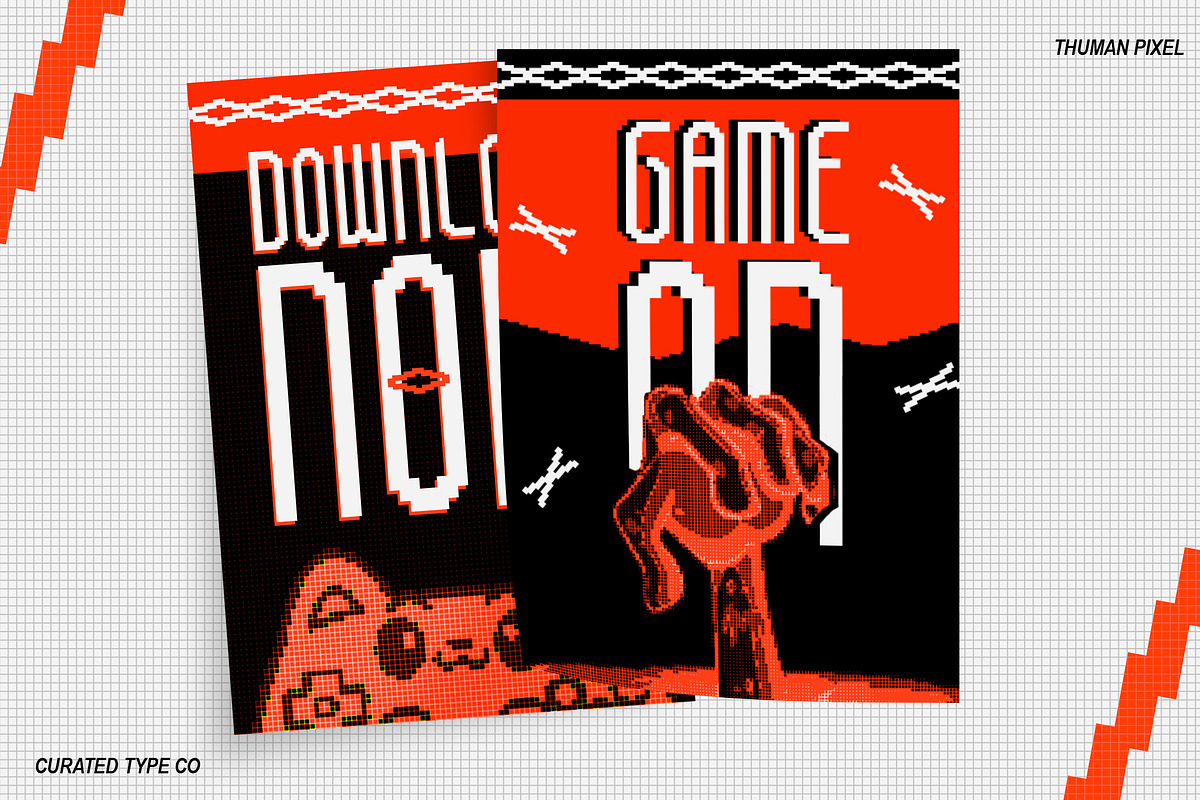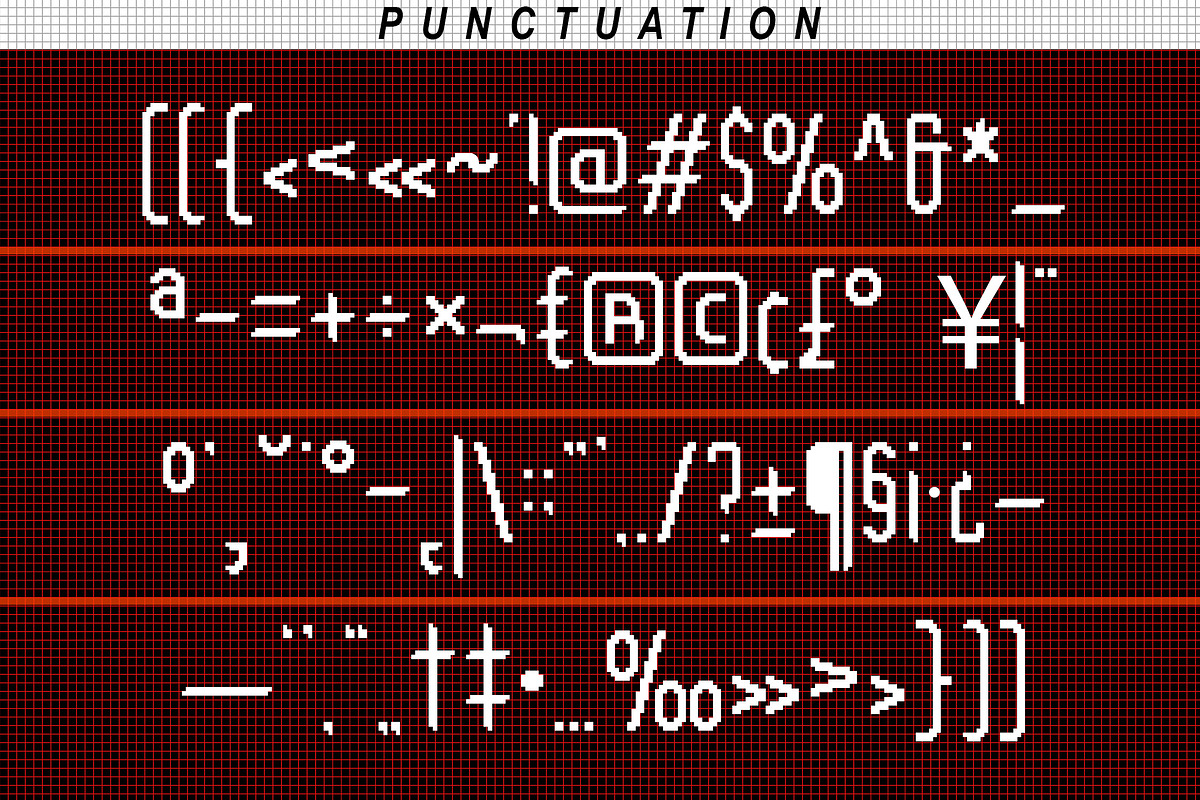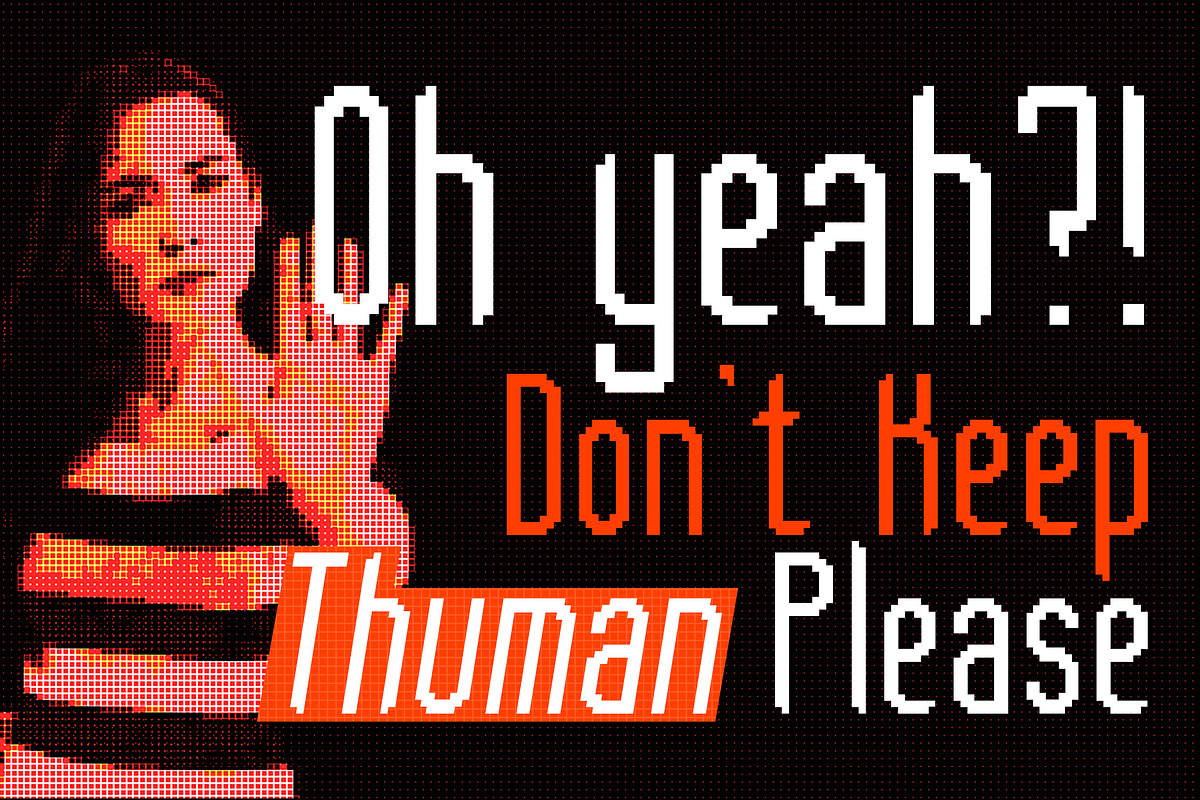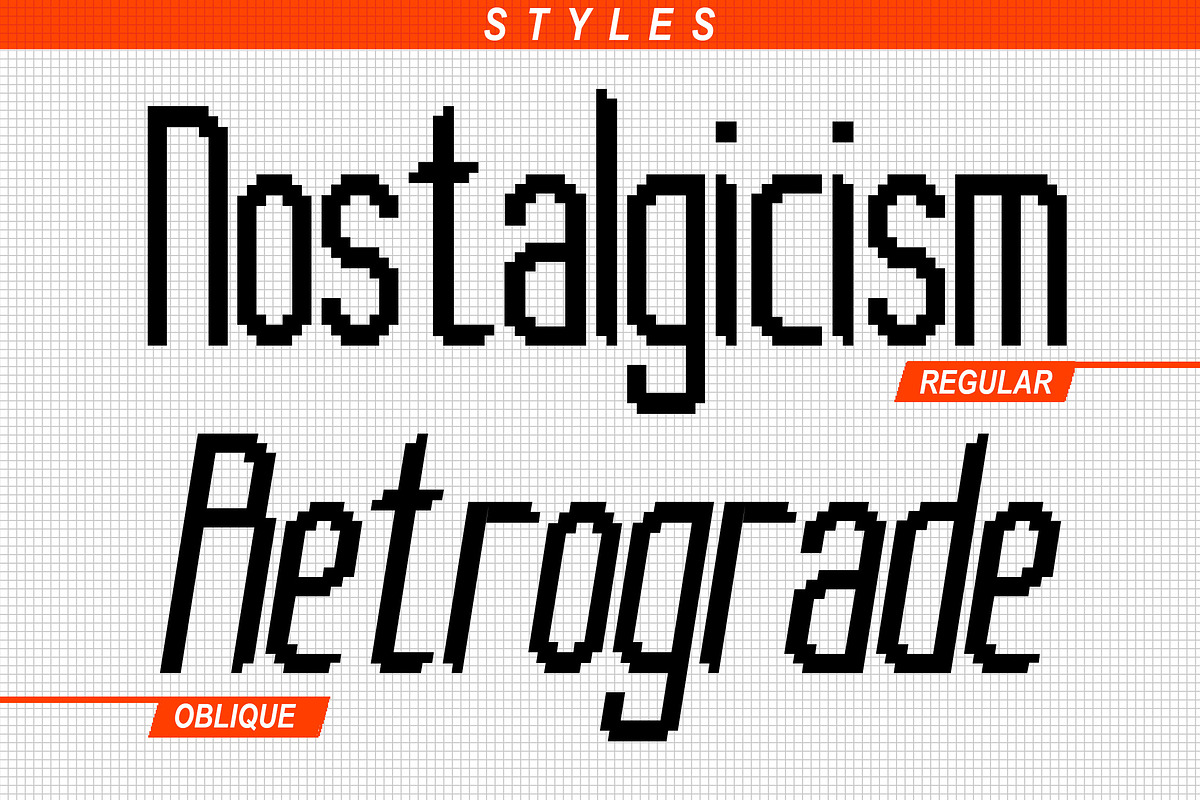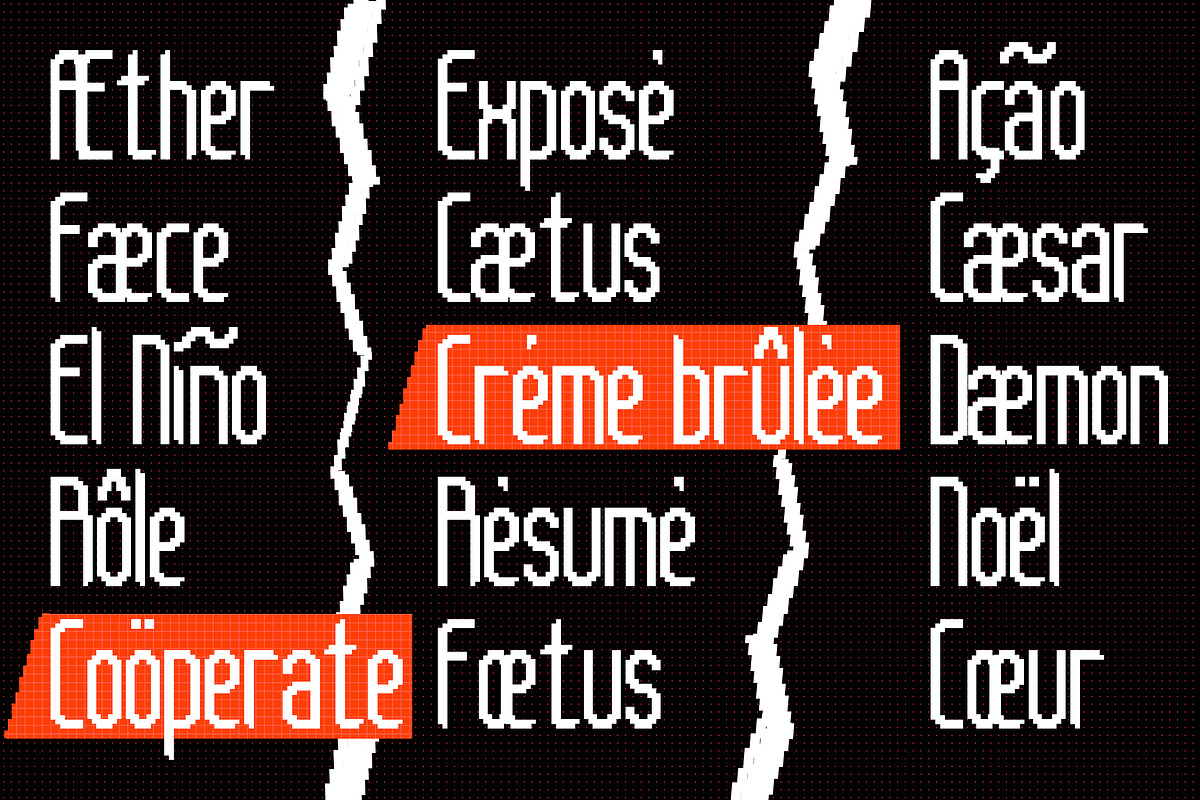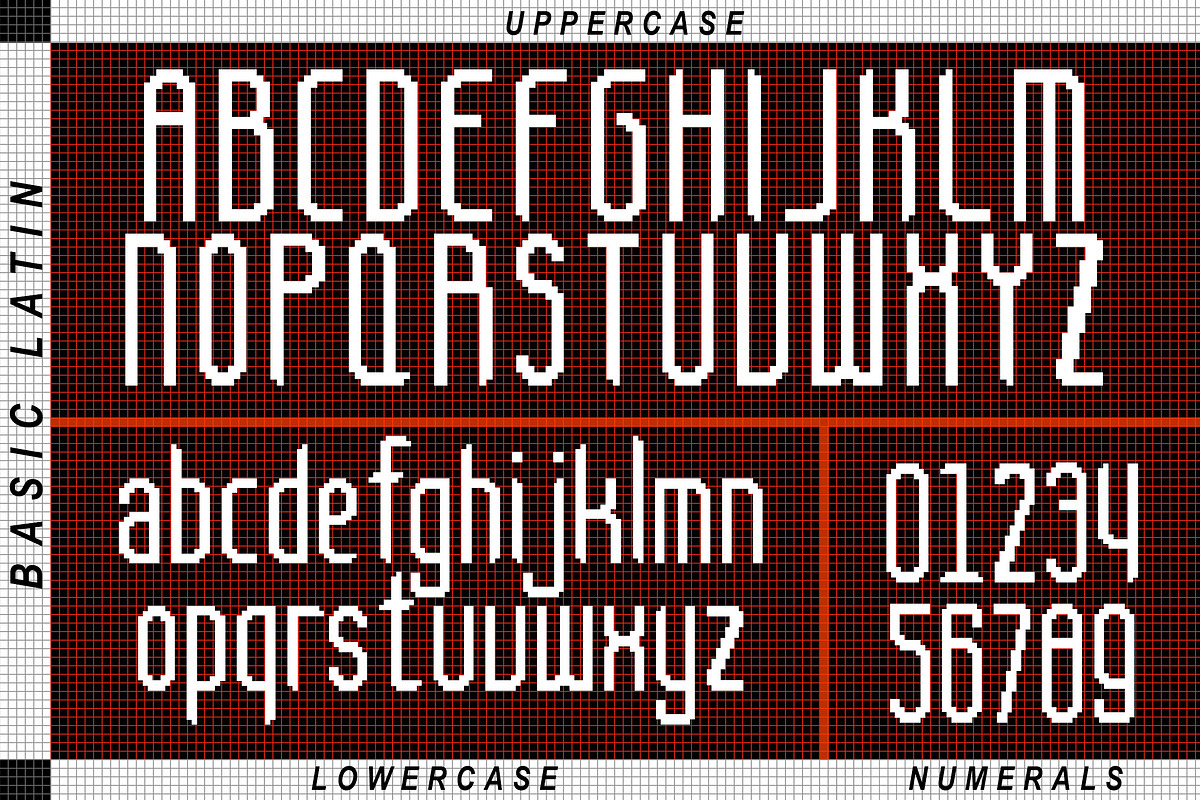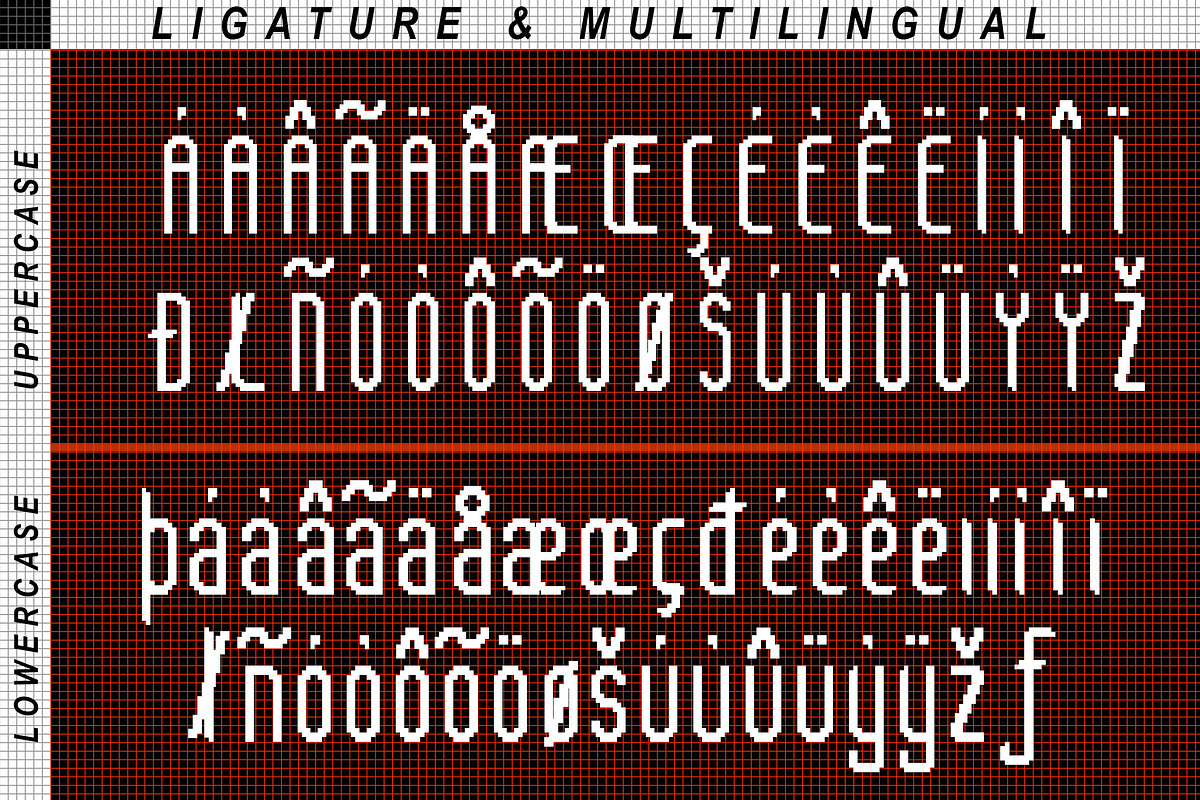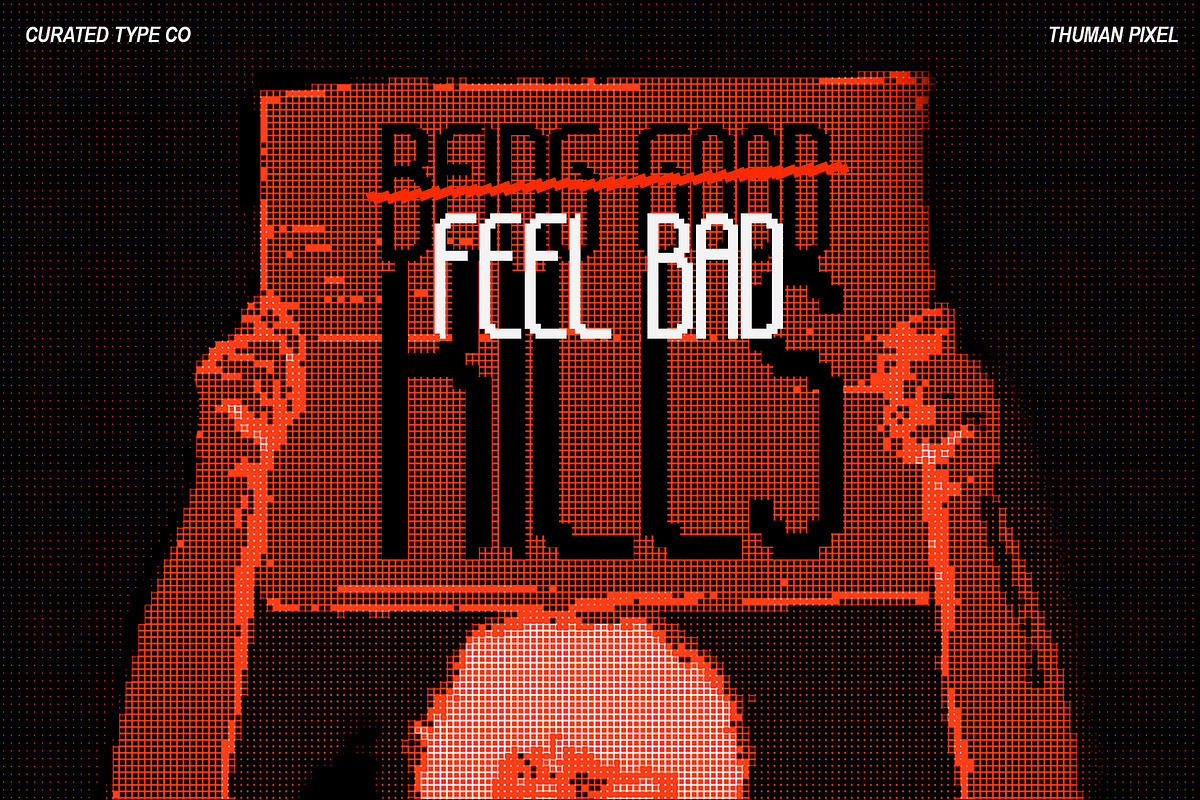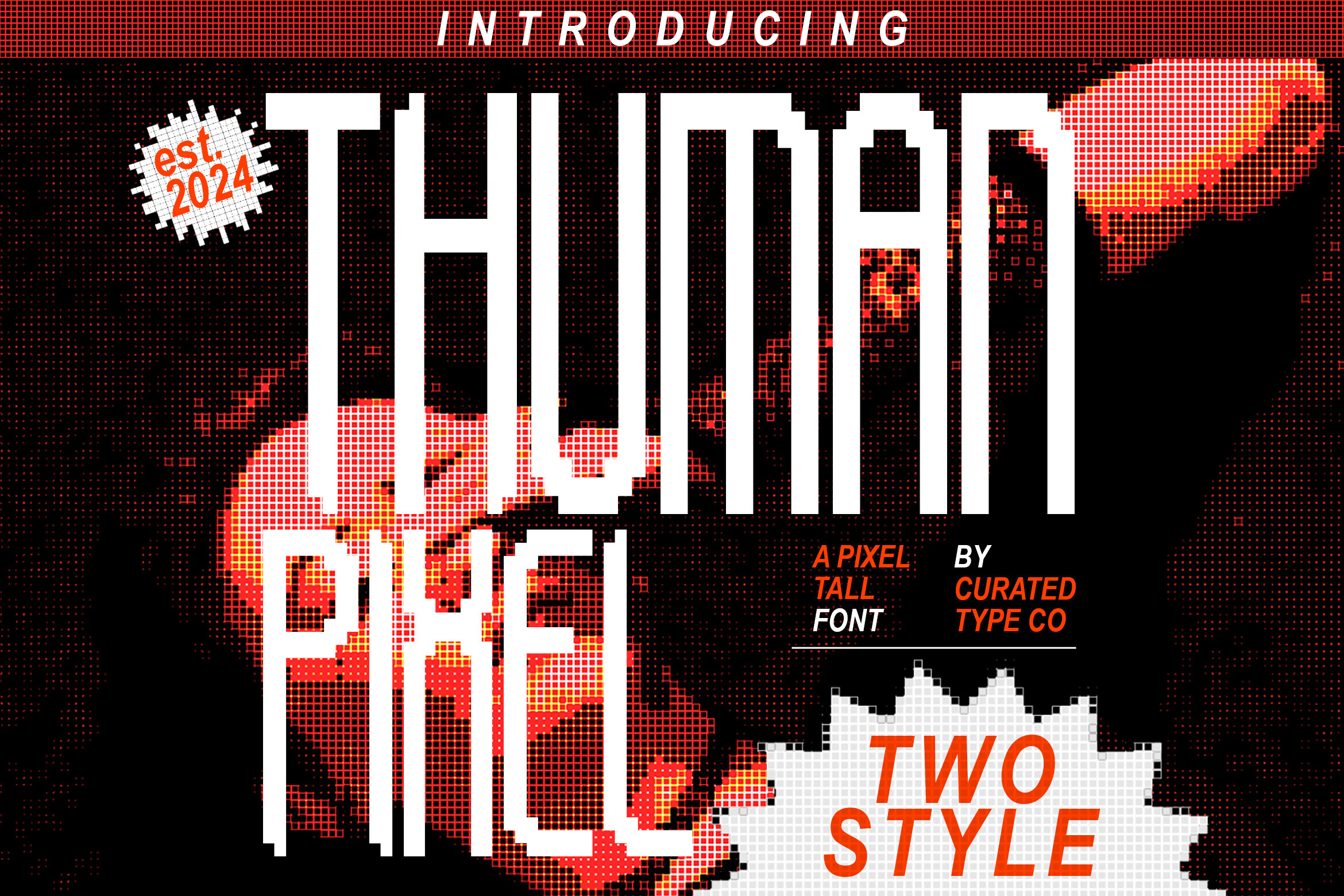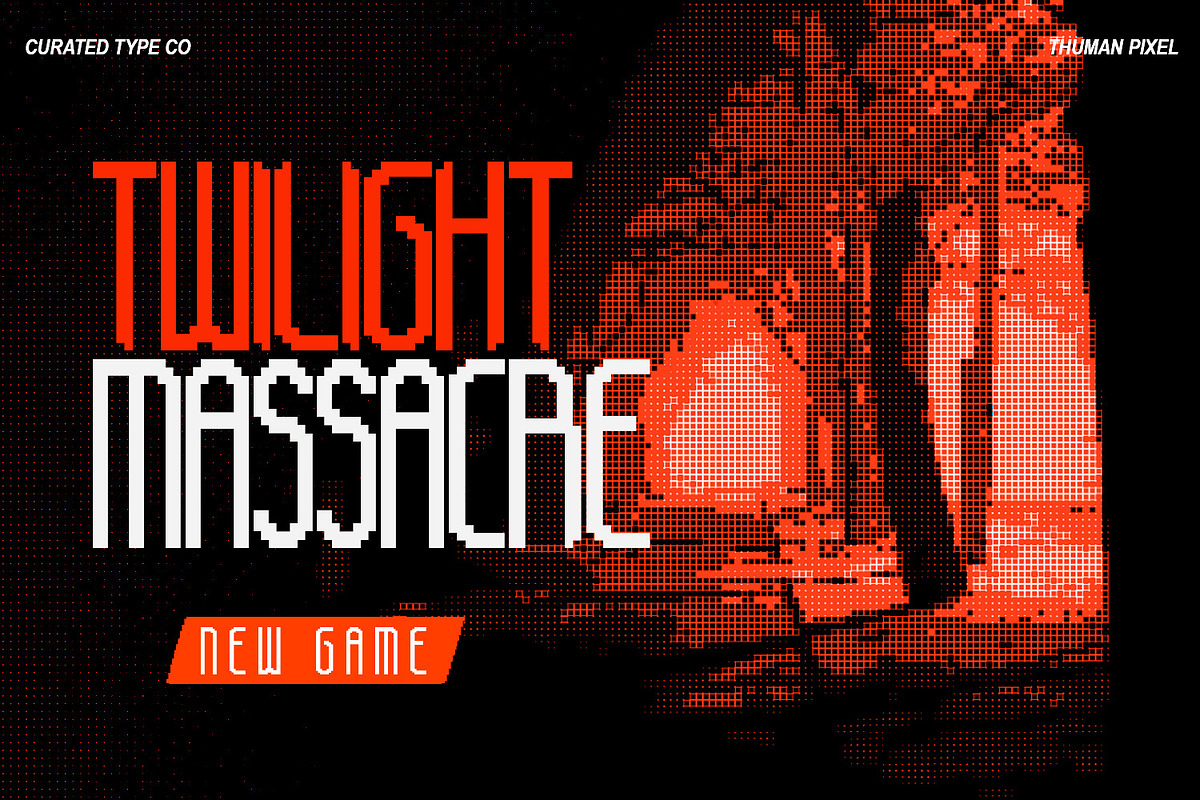
Thuman Pixel - 8Bit Tall Sans Font
Thuman Pixel is a bold, pixelated display font that combines retro charm with modern design. Its grid-based structure and blocky letters evoke the nostalgic feel of early video games, making it perfect for tech-inspired projects. The font's clean lines and sharp edges ensure readability, while its unique style adds a distinctive touch to any design.
Featuring both uppercase and lowercase letters, Thuman Pixel offers a cohesive and versatile typeface. The numerals are designed to match the pixelated style, ensuring consistency across all characters. This font is ideal for creating eye-catching headlines, posters, and digital content that demands a vintage yet contemporary aesthetic.
- 2 Font Styles: Light & Light Oblique
- Standard letter A-Z and a-z
- Numeral, Symbol, and Punctuations